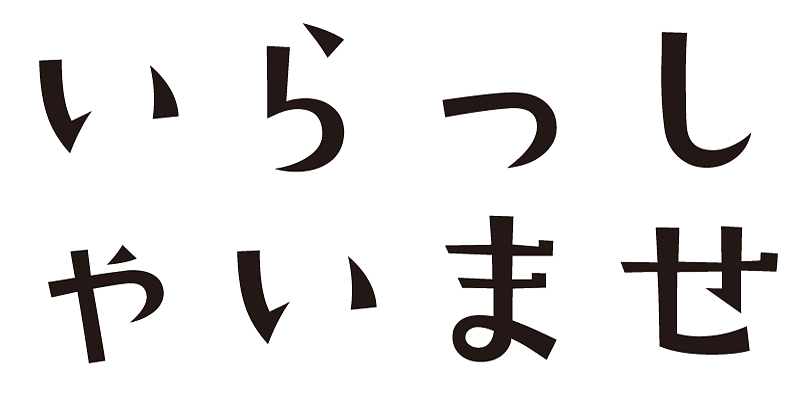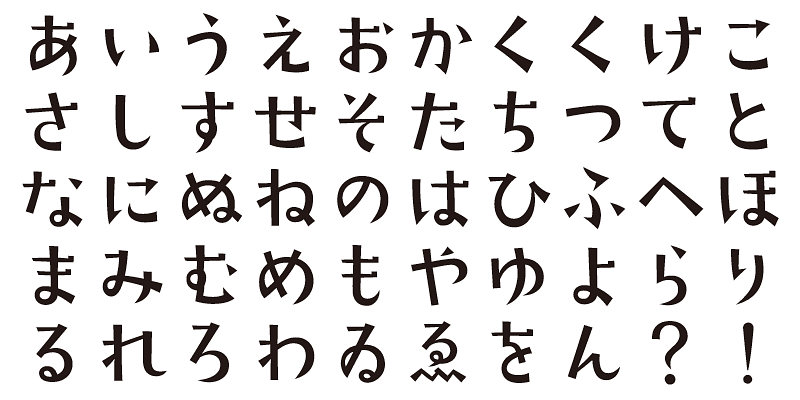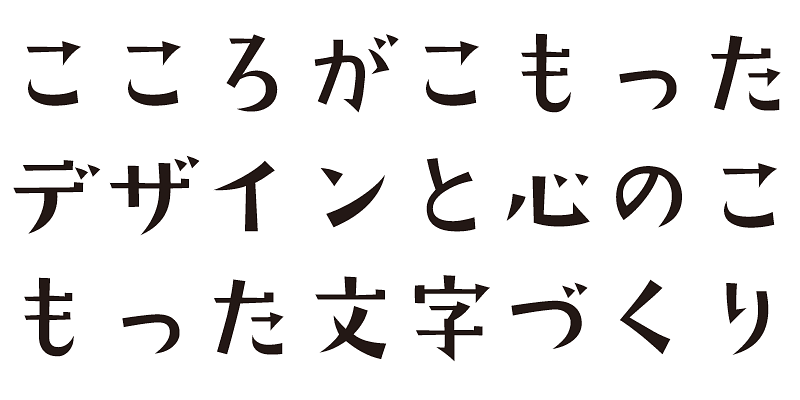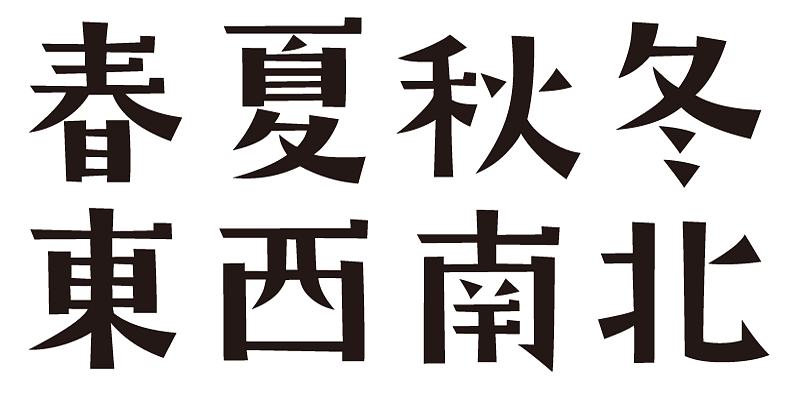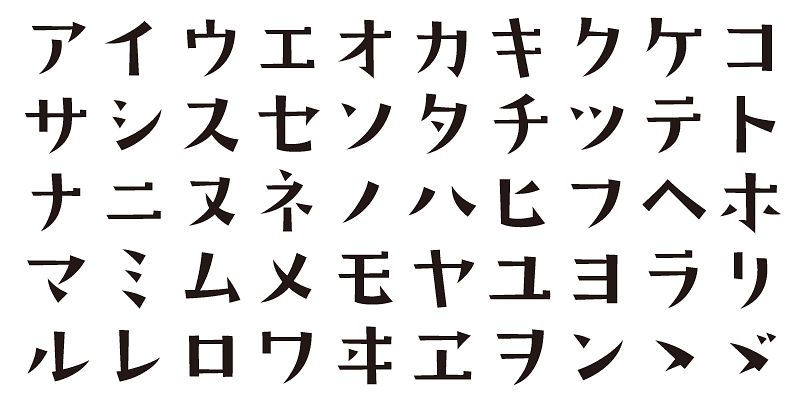
Based on a Mincho design, this typeface is bright and fluid. It will lighten your mood and set you humming.
Each font in this typeface family includes 1,000 kanji characters, as well as hiragana, katakana, alphanumeric characters, and punctuation marks.
We design typefaces with the hope that they will add underlying meaning to words expressed. We wish the user to feel good and experience comfort and joy when using these typefaces.